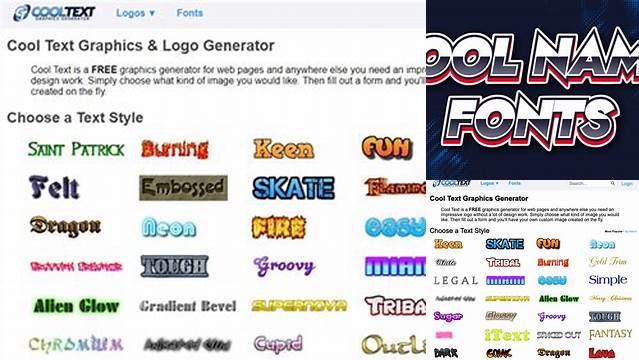
Cool Name Fonts: Styles & Generator Ideas!
Hey guys! Ever wondered how to make your name look super cool and unique? Well, you've come to the right place! We're diving deep into the awesome world of name fonts, exploring different styles, and even checking out some generator ideas to make your name stand out from the crowd. Let's get started!
Why Bother with Different Name Fonts?
So, why should you even care about different name fonts? Think about it: your name is your identity. It's how people recognize you, and it's a reflection of who you are. Using a cool font can add a touch of personality and flair to your name, whether it's for social media profiles, gaming usernames, or even personalized gifts. Plus, it's just plain fun to experiment with different styles and see what looks the best!
1. Exploring Script Fonts for Names
Script fonts are elegant and flowing, mimicking the look of handwriting. They're perfect for adding a touch of sophistication to your name. Imagine your name written in a beautiful cursive script on a wedding invitation or a personalized necklace. Some popular script fonts include Brush Script, Allura, and Pacifico. When using script fonts, make sure the letters are legible and easy to read, especially for longer names.
Think about how a script font might elevate a simple business card. Instead of a plain, blocky font, a flowing script can convey elegance and attention to detail, immediately catching the eye and leaving a lasting impression. Choosing the right script font can also subtly communicate your brand's personality, whether it's classic and refined or modern and playful.
2. Sans-Serif Fonts: Modern Name Appeal
Sans-serif fonts are clean, modern, and minimalist. They're a great choice for names that need to be easily readable, especially in digital formats. Popular sans-serif fonts include Arial, Helvetica, and Open Sans. These fonts are versatile and can be used in a variety of contexts, from websites to logos. The clarity of sans-serif fonts ensures that your name stands out without being overly distracting.
Picture a sleek website header featuring your name in a bold, sans-serif font. The clean lines and modern aesthetic immediately convey professionalism and competence. Or consider a mobile app where readability is paramount; a well-chosen sans-serif font ensures that users can easily find and identify your name within the interface.
3. Serif Fonts: Classic and Timeless Names
Serif fonts have small decorative strokes at the ends of the letters, giving them a classic and traditional look. They're often used in formal settings and can add a touch of elegance to your name. Times New Roman, Garamond, and Georgia are popular serif fonts. While they might seem a bit old-fashioned, serif fonts can still be used effectively in modern designs, especially when paired with contemporary elements.
Imagine your name embossed on a high-quality business card using a classic serif font. The subtle serifs add a touch of refinement and sophistication, conveying a sense of experience and trustworthiness. Or consider a book cover where your name is prominently displayed in a timeless serif font, hinting at the traditional and literary nature of the work.
4. Display Fonts: Unique and Eye-Catching Names
Display fonts are designed to be attention-grabbing and unique. They come in a wide variety of styles, from bold and futuristic to playful and whimsical. These fonts are perfect for making your name stand out, but they should be used sparingly and with caution. Some popular display fonts include Impact, Lobster, and Bebas Neue. Make sure the font is still legible and doesn't clash with the overall design.
Think about a poster for a local event featuring your name in a bold, eye-catching display font. The unique design immediately grabs attention and generates curiosity. Or consider a gaming channel where your username is displayed in a futuristic display font, conveying a sense of innovation and excitement.
5. Handwritten Fonts: Personalizing Your Name
Handwritten fonts mimic the look of actual handwriting, adding a personal and intimate touch to your name. They're great for creating a warm and inviting feeling, especially in informal settings. Some popular handwritten fonts include Comic Sans (use with caution!), Permanent Marker, and Amatic SC. These fonts can add a touch of authenticity and personality to your name, making it feel more approachable and relatable.
Consider a thank-you note with your name signed in a charming handwritten font. The personal touch conveys sincerity and appreciation. Or imagine a blog where your byline is displayed in a casual handwritten font, creating a sense of intimacy and connection with your readers.
6. Calligraphy Fonts: Elegant Name Designs
Calligraphy fonts are similar to script fonts but are generally more elaborate and decorative. They're perfect for adding a touch of elegance and sophistication to your name, especially in formal settings. These fonts often feature intricate swirls and flourishes, making them visually stunning. However, they can also be difficult to read, so choose a calligraphy font that is still legible.
Picture your name beautifully inscribed on a wedding invitation using a delicate calligraphy font. The elegant design conveys a sense of romance and timelessness. Or consider a personalized certificate with your name adorned in a sophisticated calligraphy font, adding a touch of prestige and accomplishment.
7. Vintage Fonts: Retro Name Styles
Vintage fonts evoke a sense of nostalgia and old-world charm. They're perfect for names that need a retro or classic feel. These fonts often feature distressed textures and unique letterforms, giving them a distinctive look. When using vintage fonts, consider the overall design and make sure it complements the font's style. Some popular vintage fonts include Rockwell, Futura, and Baskerville.
Imagine your name displayed on a vintage-inspired poster using a classic vintage font. The retro design conveys a sense of history and authenticity. Or consider a branding campaign for a local coffee shop where your name is featured in a charming vintage font, evoking a sense of nostalgia and community.
8. Gothic Fonts: Bold and Dramatic Names
Gothic fonts, also known as blackletter fonts, are bold, dramatic, and often associated with medieval times. They're perfect for names that need a strong and imposing look. These fonts feature intricate letterforms and sharp angles, making them visually striking. However, they can also be difficult to read, so use them sparingly and in large sizes. Popular gothic fonts include Old English Text, Fraktur, and Cloister Black.
Picture your name emblazoned on a band poster using a bold gothic font. The dramatic design conveys a sense of power and intensity. Or consider a tattoo design where your name is rendered in a striking gothic font, adding a touch of mystery and rebellion.
9. Pixel Fonts: Gaming and Tech-Inspired Names
Pixel fonts mimic the look of old-school computer fonts, with each letter made up of individual pixels. They're perfect for names that need a gaming or tech-inspired feel. These fonts are often used in video games, websites, and other digital media. While they can be difficult to read in small sizes, pixel fonts can add a unique and retro touch to your name.
Imagine your gaming username displayed in a classic pixel font, evoking a sense of nostalgia for retro gaming. Or consider a website for a tech startup where your name is featured in a modern pixel font, conveying a sense of innovation and digital expertise.
10. Slab Serif Fonts: Strong and Confident Names
Slab serif fonts are similar to serif fonts but have thicker, blockier serifs. They're perfect for names that need a strong and confident look. These fonts are often used in headlines and logos, as they stand out and command attention. Popular slab serif fonts include Courier New, Rockwell, and Museo Slab. They are visually impactful and can communicate stability and authority.
Consider your name on a book cover using a bold slab serif font to show strength and confidence. Or maybe you're building a brand, and your name in a slab serif font will show your business has a solid foundation.
11. 3D Fonts: Adding Depth to Your Name
3D fonts add a three-dimensional effect to your name, making it pop off the page. They're perfect for creating eye-catching designs and adding depth to your text. These fonts often use shadows and highlights to create the illusion of depth. They can be used in various designs from logos to posters and add a unique touch.
Imagine your name on a movie poster with a cool 3D font; it would be sure to catch everyone’s attention. Or, if you want a unique logo, a 3D font can really make your name stand out.
12. Outline Fonts: Stylish Name Contours
Outline fonts only show the outline of the letters, creating a stylish and modern look. They're perfect for adding a subtle yet distinctive touch to your name. These fonts can be used in a variety of designs, from logos to website headers, and they work well when you want a minimalist aesthetic.
Think about your name on a business card with an outline font – it looks clean and modern. Or maybe you want to use an outline font for your personal blog header to keep things simple but stylish.
13. Shadow Fonts: Subtle Name Effects
Shadow fonts add a shadow effect to the letters, giving your name a subtle yet stylish look. They're perfect for adding depth without going overboard with 3D effects. These fonts are great for making text stand out on busy backgrounds and can be used in various designs to add a touch of elegance.
Picture your name on a website with a shadow font; it makes it easy to read and adds a bit of style. Or, use a shadow font for your social media profile to make your name pop.
14. Rounded Fonts: Friendly and Approachable Names
Rounded fonts have soft, rounded edges, giving your name a friendly and approachable feel. They're perfect for creating a welcoming atmosphere. These fonts are often used in designs for children or brands that want to convey a sense of warmth and friendliness.
Imagine your name on a children's book cover with a rounded font; it’s inviting and fun. Or, if you're starting a daycare, a rounded font can make your business seem more welcoming.
15. Distorted Fonts: Edgy and Unique Name Styles
Distorted fonts have unusual shapes and designs, giving your name an edgy and unique look. They're perfect for making a statement and standing out from the crowd. These fonts are often used in designs for music albums, posters, and other media where you want to make a bold impression.
Consider your name on a band poster with a distorted font; it immediately catches the eye. Or, if you're designing a unique logo, a distorted font can make your brand memorable.
16. Graffiti Fonts: Urban and Artistic Names
Graffiti fonts mimic the look of street art, giving your name an urban and artistic vibe. They're perfect for designs that need a raw and edgy feel. These fonts are often used in posters, flyers, and other media where you want to convey a sense of rebellion and creativity.
Think about your name on a street art mural with a graffiti font; it’s cool and urban. Or, use a graffiti font for your skateboard brand to give it an authentic street feel.
17. Neon Fonts: Bright and Electric Names
Neon fonts mimic the look of neon signs, giving your name a bright and electric feel. They're perfect for designs that need a retro or futuristic vibe. These fonts are often used in signage, posters, and other media where you want to grab attention with a vibrant and eye-catching design.
Imagine your name on a bar sign with a neon font; it’s bright and inviting. Or, use a neon font for your online gaming profile to stand out in the digital world.
18. Eroded Fonts: Grunge and Textured Names
Eroded fonts have a worn-out, textured look, giving your name a grunge and vintage feel. They're perfect for designs that need a rugged and aged appearance. These fonts are often used in posters, album covers, and other media where you want to convey a sense of history and authenticity.
Picture your name on an old band poster with an eroded font; it’s gritty and real. Or, use an eroded font for your vintage clothing brand to give it an authentic, worn-in look.
19. Futuristic Fonts: Modern and Techy Names
Futuristic fonts have sleek, modern designs that give your name a high-tech feel. They're perfect for projects related to technology, science, and innovation. These fonts often feature clean lines, geometric shapes, and a minimalist aesthetic.
Imagine your name displayed in a futuristic font on the website for a new tech startup, conveying innovation and forward-thinking. Or use a futuristic font in the logo for a gaming company to give it a cutting-edge look.
20. Geometric Fonts: Structured and Precise Names
Geometric fonts are based on simple geometric shapes like circles, squares, and triangles. They give your name a structured and precise look, perfect for conveying a sense of order and stability. These fonts are often used in logos, branding, and other designs where clarity and balance are essential.
Consider your name presented in a geometric font on a modern business card, conveying professionalism and attention to detail. Or use a geometric font in the design of a minimalist website to give it a clean and organized appearance.
21. Variable Fonts: Dynamic Name Customization
Variable fonts allow you to adjust various aspects of the font, such as weight, width, and slant, giving you a high degree of customization. This makes them perfect for creating unique and dynamic name designs. With variable fonts, you can fine-tune the font to perfectly match your desired aesthetic.
Imagine using a variable font to create a logo that adapts dynamically to different screen sizes, ensuring optimal readability and visual appeal. Or use a variable font to create personalized name tags with subtle variations for each individual.
22. Animated Fonts: Bringing Your Name to Life
Animated fonts add motion and visual effects to your name, bringing it to life and making it more engaging. They're perfect for use in videos, presentations, and other multimedia projects. Animated fonts can range from simple fades and slides to more complex and dynamic effects.
Think about using an animated font to create an eye-catching intro for your YouTube channel, instantly grabbing viewers' attention. Or use an animated font in a presentation to highlight key points and make your message more memorable.
23. Color Fonts: Vibrant and Expressive Names
Color fonts include multiple colors within each letter, giving your name a vibrant and expressive look. They're perfect for designs that need to stand out and make a bold statement. Color fonts can be used in a variety of applications, from logos to social media graphics.
Imagine using a color font to create a visually stunning logo for a creative agency, showcasing their artistic flair. Or use a color font to design eye-catching social media posts that grab attention and increase engagement.
24. Name Font Generators: Quick and Easy Styles
Name font generators are online tools that allow you to quickly and easily create name designs in various fonts and styles. These generators are perfect for experimenting with different looks and finding the perfect font for your needs. Simply enter your name, choose a font, and customize the design to your liking.
Try out a name font generator to create a unique profile picture for your social media accounts. Or use it to design a custom name tag for your next event. These tools make it easy to create professional-looking designs without any design experience.
25. Combining Fonts: Creating Unique Name Compositions
Combining different fonts can create unique and visually appealing name compositions. Experiment with pairing different font styles, such as serif and sans-serif, to create a balanced and interesting design. Just make sure the fonts complement each other and don't clash.
Consider pairing a bold sans-serif font with a delicate script font to create a logo that is both modern and elegant. Or combine a vintage font with a futuristic font to create a design that is both nostalgic and forward-thinking.
26. Font Pairing Tips for Names
When combining fonts for your name, consider contrast, hierarchy, and readability. Use contrasting fonts to create visual interest, establish a clear hierarchy to guide the viewer's eye, and ensure that the fonts are legible and easy to read. Avoid using too many different fonts in one design, as this can create a cluttered and confusing look.
Try pairing a bold headline font with a simple body font to create a clear visual hierarchy. Or use a decorative font for your initials and a clean font for the rest of your name to add a touch of personality without sacrificing readability.
27. Where to Find Free Name Fonts
There are many websites where you can find free fonts for your name designs. Some popular options include Google Fonts, DaFont, and Font Squirrel. Just make sure to check the license agreement before using a font, as some fonts may have restrictions on commercial use.
Browse Google Fonts for a wide selection of open-source fonts that you can use for free in your personal and commercial projects. Or check out DaFont for a diverse collection of user-submitted fonts, ranging from classic to quirky.
28. Using Fonts for Name Logos
Fonts play a crucial role in creating effective name logos. Choose a font that reflects your brand's personality and values, and make sure it is legible and memorable. Consider the overall design of the logo and how the font complements the other elements.
Select a bold and modern font for a tech startup logo to convey innovation and cutting-edge technology. Or choose a classic and elegant font for a luxury brand logo to convey sophistication and refinement.
29. Legal Considerations for Using Name Fonts
When using fonts for your name designs, it's important to be aware of the legal considerations. Most fonts are protected by copyright, and you may need to purchase a license to use them commercially. Always check the font's license agreement before using it in your projects.
Ensure you have the proper license to use a font in your logo or branding materials to avoid potential legal issues. Or choose open-source fonts that are free to use for both personal and commercial purposes.
30. Future Trends in Name Typography
The field of typography is constantly evolving, with new trends and technologies emerging all the time. Some future trends in name typography include the use of variable fonts, animated fonts, and color fonts. These trends offer exciting opportunities for creating unique and dynamic name designs.
Keep an eye on the latest developments in font technology to stay ahead of the curve and create innovative and visually stunning name designs. Or experiment with new font styles and techniques to push the boundaries of typography and create truly unique and memorable designs.
So there you have it, guys! A deep dive into the world of name fonts. Have fun experimenting and finding the perfect style to express your unique identity!